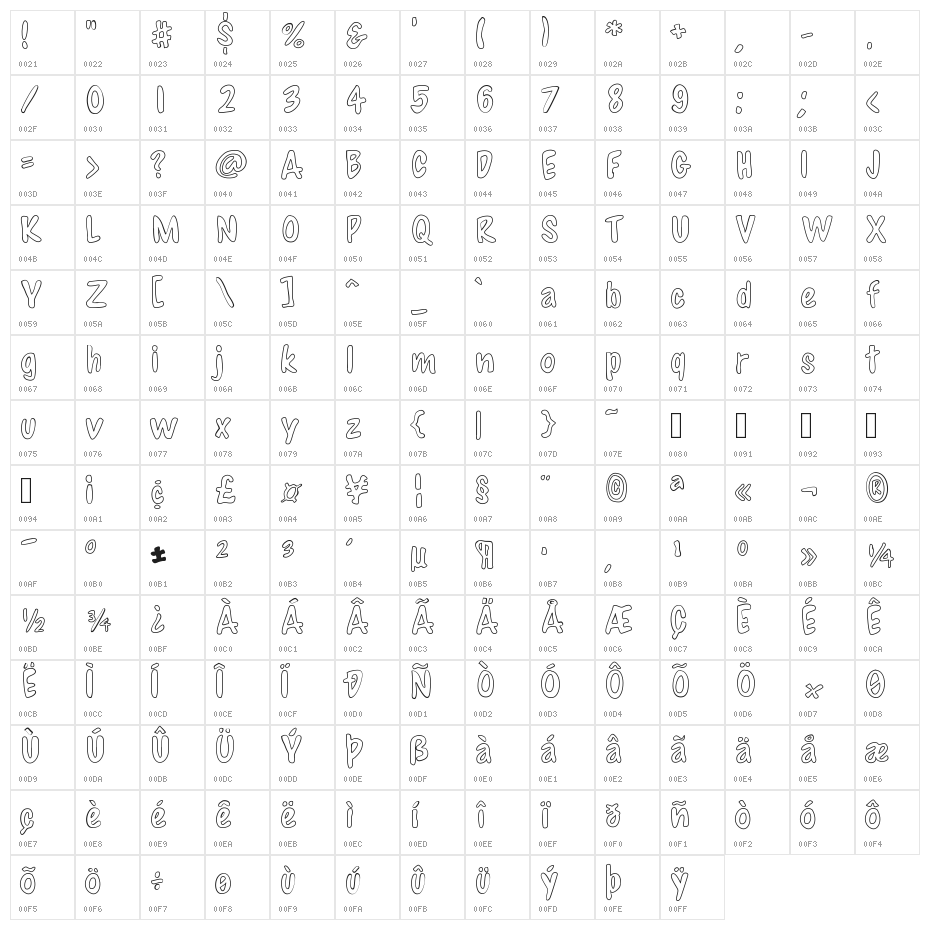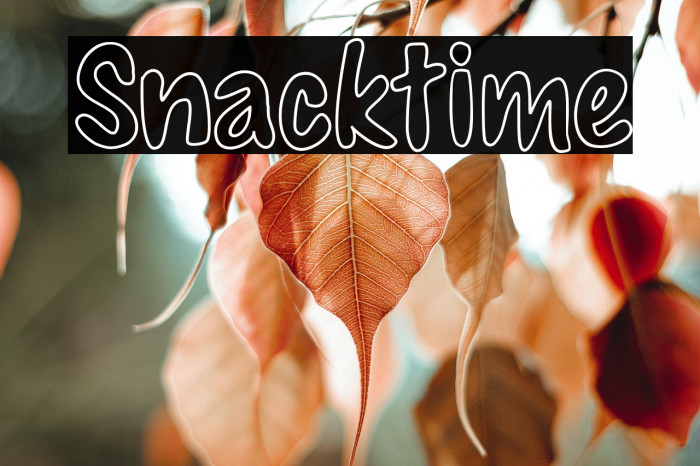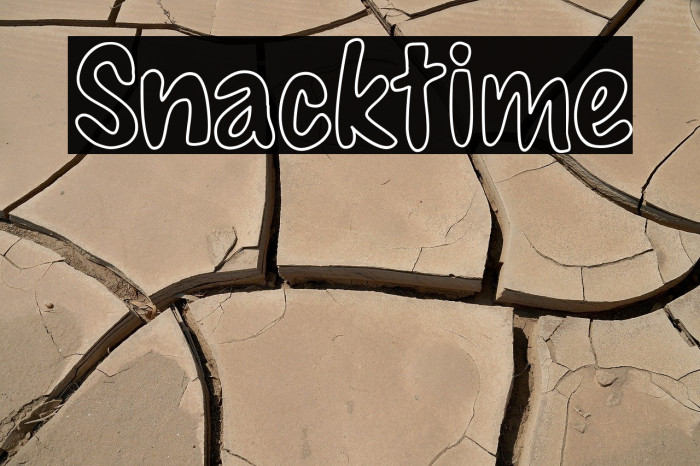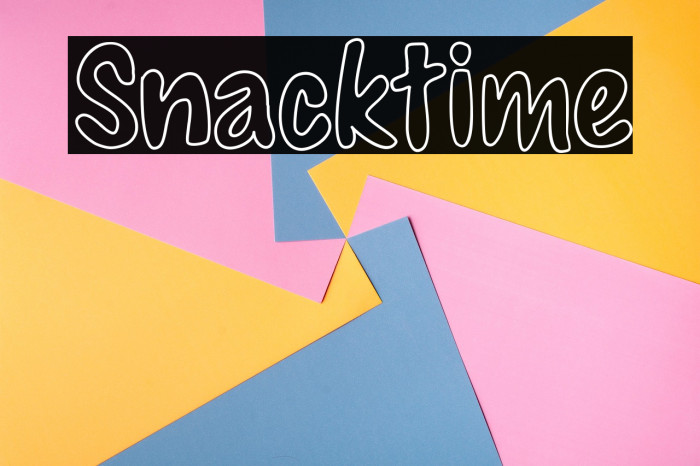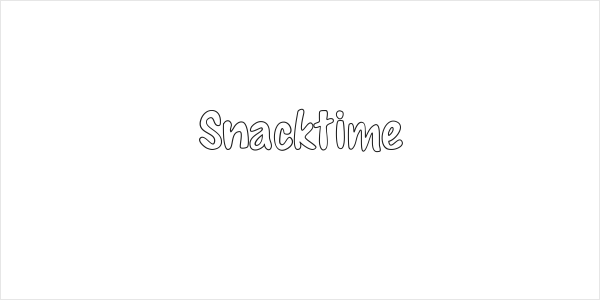
Snacktime Font
Snacktime Description
This playful and whimsical font features bold, rounded characters with a hand-drawn appearance. The letters are outlined, giving them a bubble-like quality that adds a sense of fun and creativity. The uppercase and lowercase letters maintain consistent proportions, while the numbers and special characters follow the same playful style. This font exudes a casual and friendly vibe, making it perfect for projects that require a touch of humor and lightheartedness. The strokes are uniform, with a medium contrast that ensures readability while maintaining its unique style.
| Overall Style | Playful |
| Proposed Projects | Ideal for children's books, playful branding, party invitations, and casual posters. |